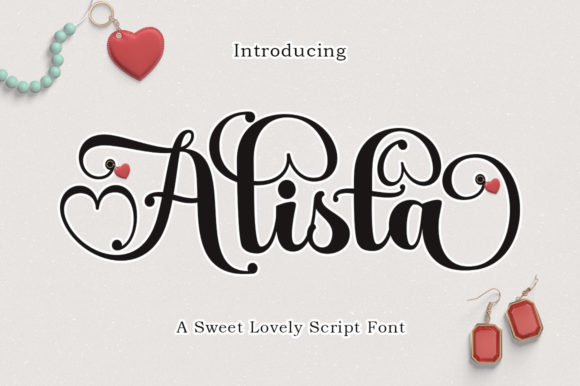
Journey into the world of Alista Script, a font crafted with elegance and finesse. Experience the allure of handwritten charm, where each letter dances across the page with a graceful fluidity. Alista Script is the perfect companion for your creative endeavors, adding a touch of sophistication to any project.
Unleash your imagination and design wedding invitations that exude romance and elegance. The flowing curves and delicate lines of Alista Script will capture the essence of your special day, making it an unforgettable celebration. Elevate your thank you cards with a heartfelt touch, expressing your gratitude with a font that radiates warmth and appreciation.
Transform your quotes into works of art with Alista Script. Its graceful strokes and subtle variations bring depth and emotion to your words, allowing them to resonate with your audience. Design greeting cards that leave a lasting impression, conveying your heartfelt sentiments with a font that speaks volumes.
Elevate your branding with Alista Script, a font that exudes professionalism and creativity. Create logos that stand out, leaving a lasting impression on your customers. Adorn your business cards with a touch of elegance, making a statement that reflects your attention to detail and commitment to excellence.
Alista Script's versatility knows no bounds. Whether you're creating social media posts that demand attention or crafting marketing materials that captivate your audience, this font will elevate your designs to new heights.